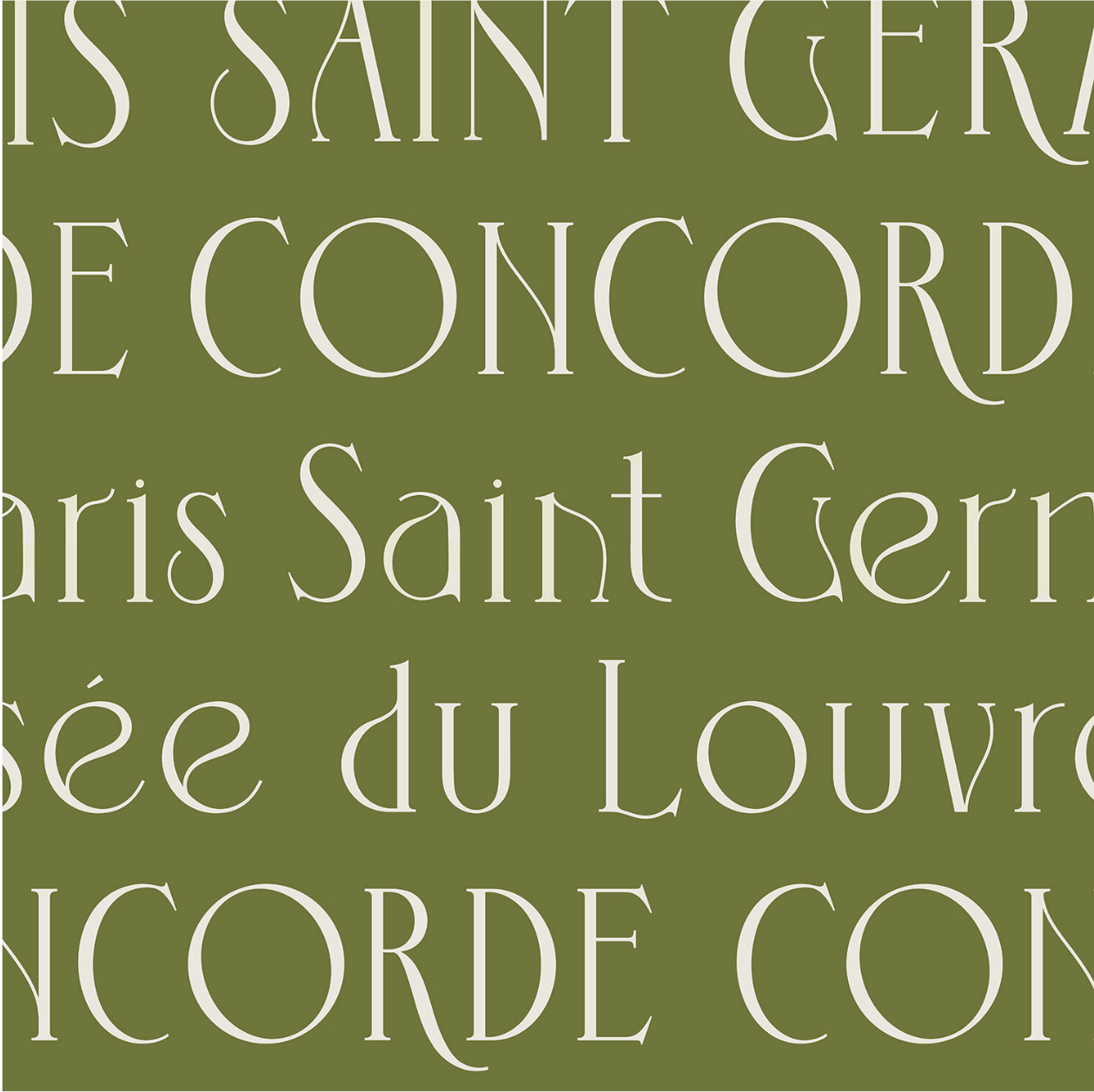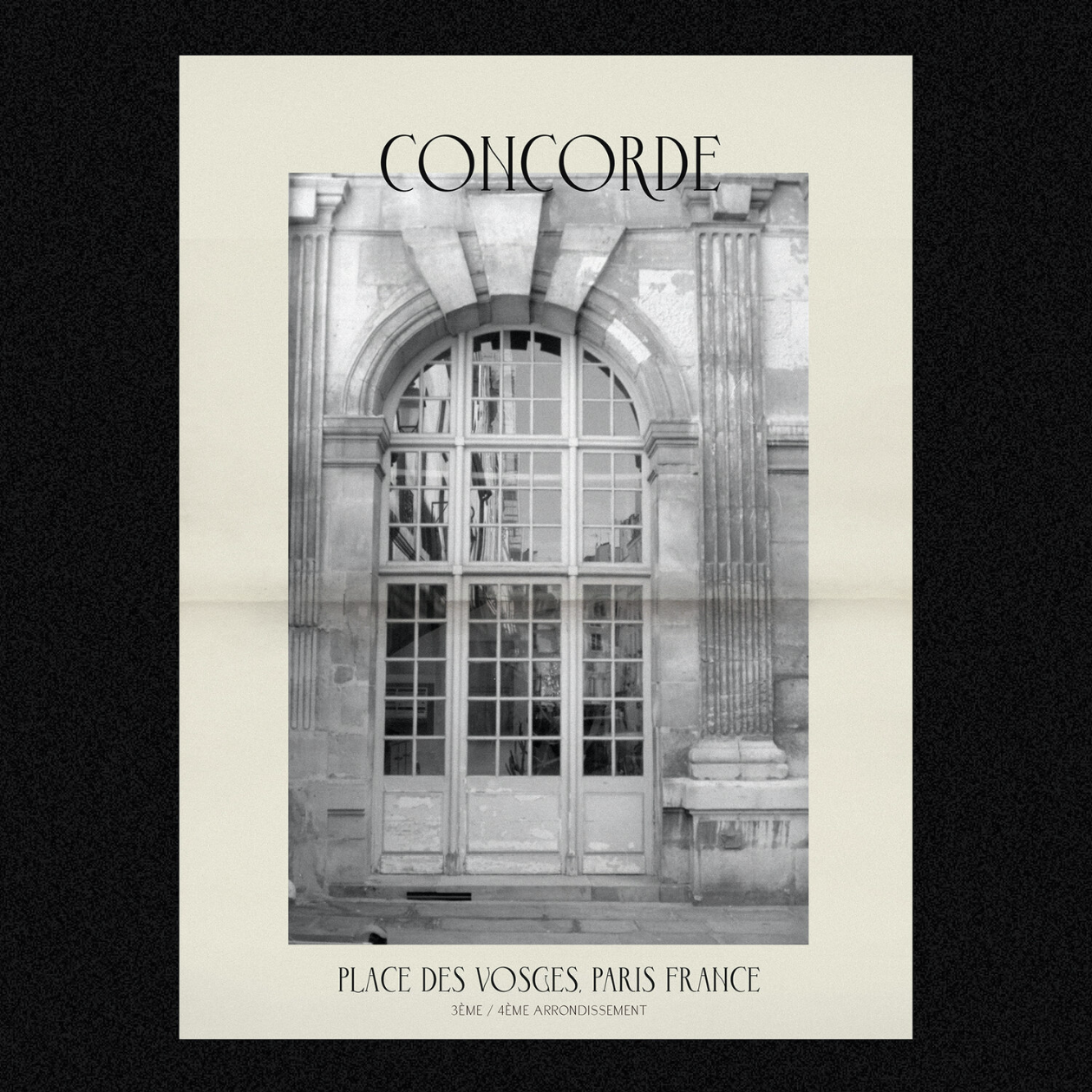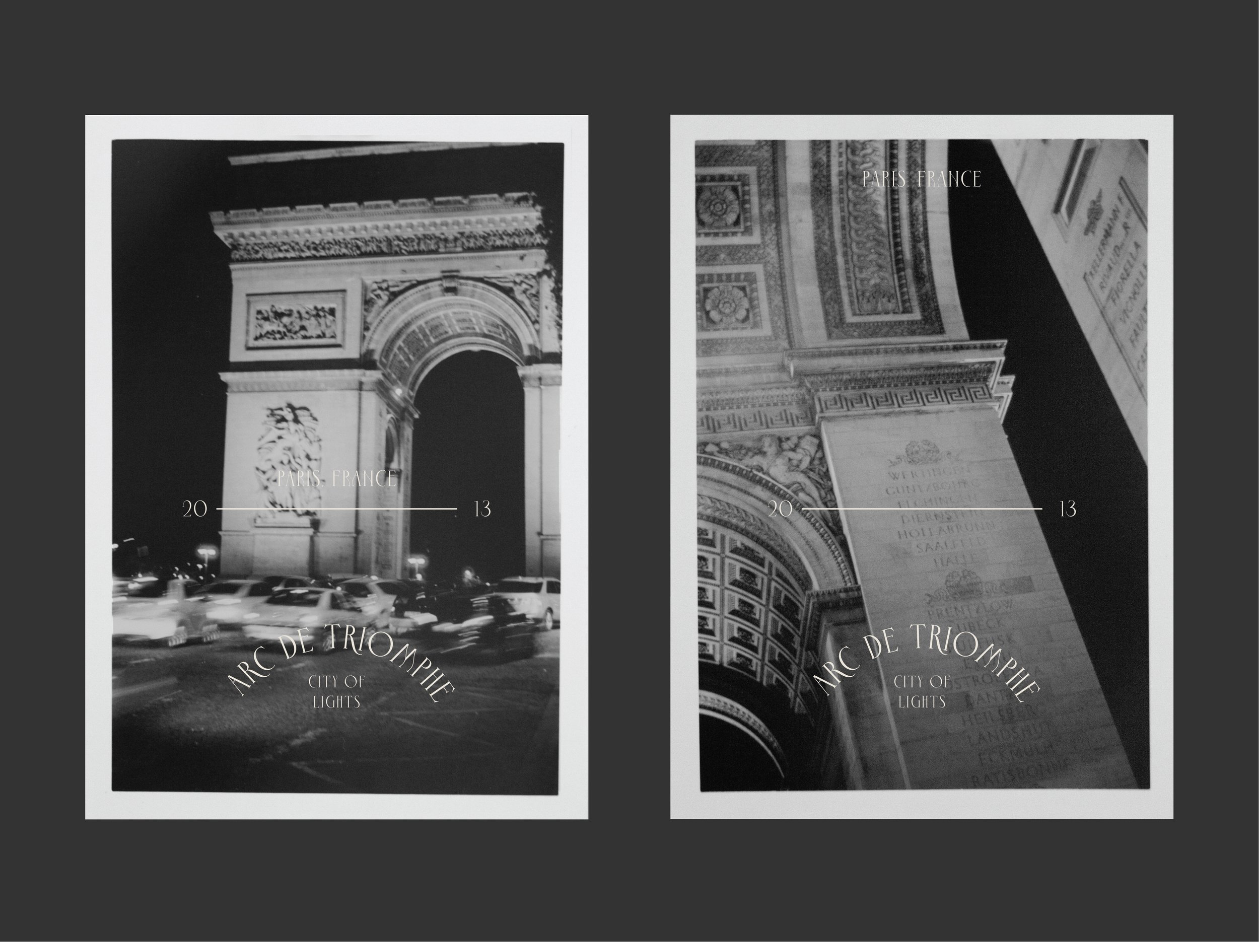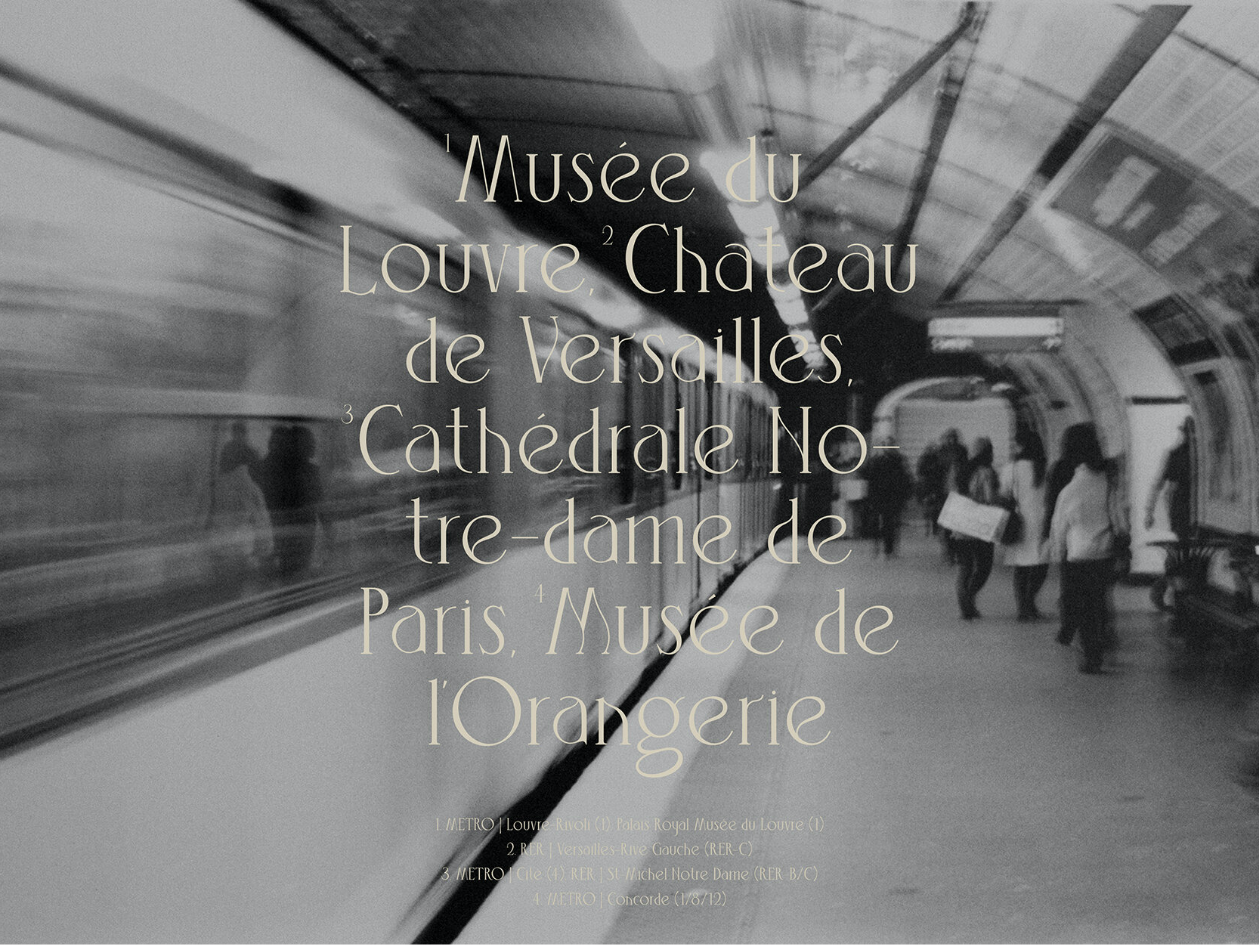
Saint Hackney font our newest display serif, integrating classic Transitional style details while showcasing modern nuanced details. Designed to work perfectly in big and medium sizes as a display text, it was also imperative that Saint Hackney doesn’t lose any class or sophistication when shown in smaller sizes. The name was drawn from Saint John at Hackney Church located in East London, which was restored by architect John Pauson in 2019. A restoration project uncovers old forgotten details while unequivocally standing tall as a new creation.
CLASSIFICATION
Serif — Transitional/Modern
RELEASE
2024
VERSION
1.0
WEIGHTS
6 — Light, Regular, Medium, Semibold, Bold, Black
DESIGNER
Laura Bennett